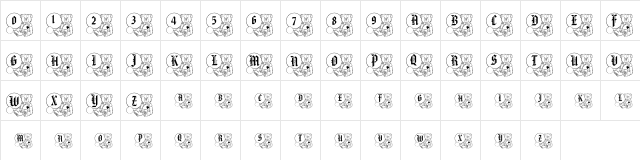
pf_valentine_bear Regular
Design Context for pf_valentine_bear Typeface
pf_valentine_bear is a composed and adaptable typeface that performs quietly and consistently across a wide range of design contexts.